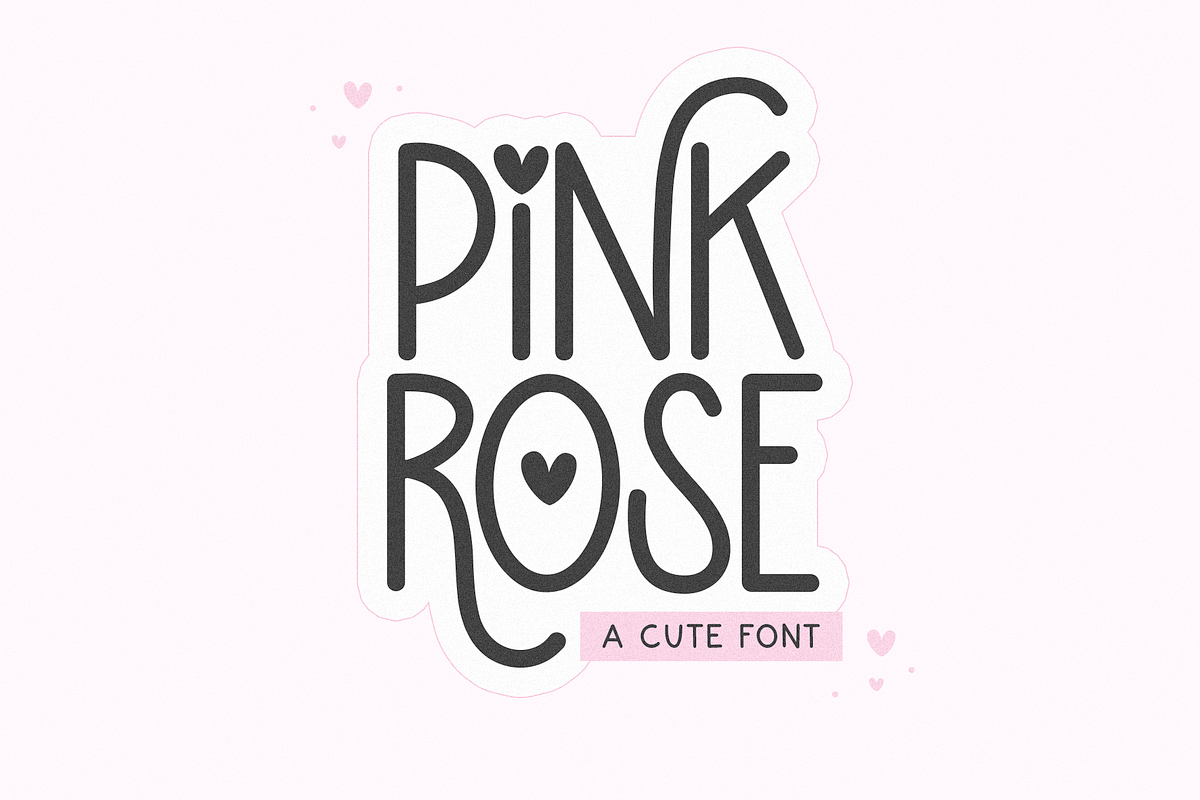
Pink Rose | Cute Valentine Font Free Download
Pink Rose | Cute Valentine Font Free Download is a sweet and romantic typeface designed to add charm and affection to your creative projects. With its soft curves and handwritten feel, this font is perfect for Valentine’s Day cards, love letters, wedding invitations, romantic branding, and sweet social media content.
Pink Rose | Cute Valentine Font Free Download brings warmth and tenderness to your words, making every message feel more personal and heartfelt. Its delicate letterforms and playful character make it ideal for expressing love, gratitude, and everything in between.
Whether you're crafting custom gifts, designing packaging for handmade treats, or creating content that needs a little extra aww, this font delivers emotional impact with elegance and cuteness. Pair it with soft pastels, floral illustrations, or heart-shaped elements for the full Valentine effect.
Fall in love with your designs all over again—because with Pink Rose, every letter blooms with meaning.